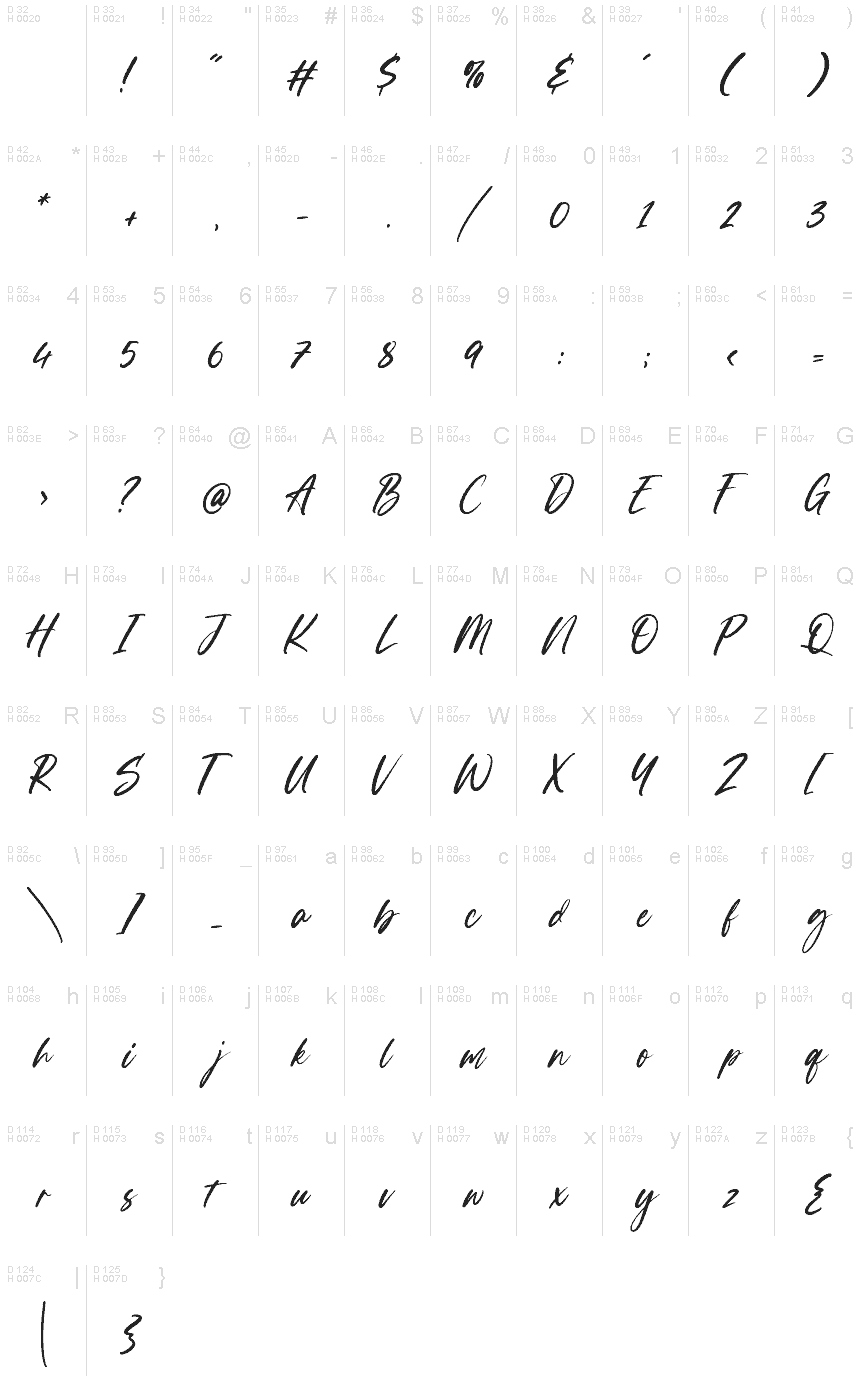
Boulderstone
Boulderstone font, by Letterative Studio, is a handwritten typeface filled with artistic script elements. It carries an expressive tone while maintaining a modern aesthetic. Making it stand out are its elegant curves and smooth flow, which give it life and character. Thanks to its attention-grabbing style, it helps communicate your ideas in a distinctive creative manner.
Use Boulderstone for social media post designs, greeting cards, inspirational quotes posters, book covers and titles. It also serves well for magazine headlines, restaurant menu covers or highlights; fashion store websites; newsletters; video thumbnails; packaging designs or any general branding project that assumes visual communication importance within your organisation’s identity development strategy!